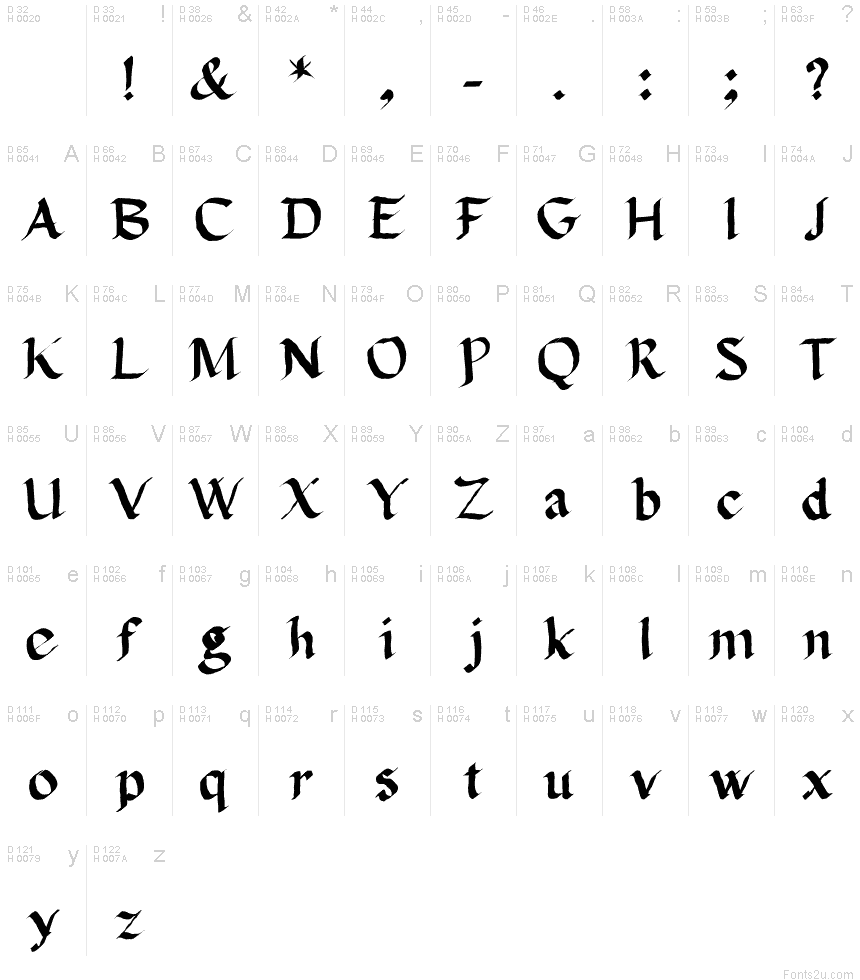
Calligula
Calligula font by Roland Frantz of Synergistic Designs is a free handwritten typeface with a dark, historic bite. Its strokes feel like they’ve been carved with a broad-nib pen—chunky, inky, and slightly irregular—so every word has the mood of an old spellbook or crumbling manuscript. The letters lock together with a dense, dramatic rhythm that pulls the eye straight into your title or logo.
Using Calligula, you can push fantasy book covers, RPG titles, gothic posters, band logos, tattoo concepts, and Halloween branding into richer, more atmospheric territory. This free font shines at larger sizes where its rough edges and ink-heavy curves really show. Pair it with a simple, clean sans serif for body copy to keep things readable while Calligula does the storytelling.